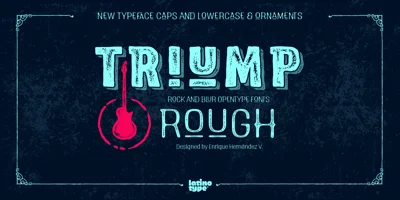
Triump Rough Font
Triump Rough Font presents designers with a distressed typeface that embodies victorious spirit and weathered strength with triumphant character. However, for commercial use, you must purchase this font. You can download it for free for testing purposes only.
Triump Rough Font excels in rugged design applications including vintage sports team branding, distressed merchandise graphics, retro motorcycle club materials, weathered signage systems, rustic brewery packaging, grunge music promotions, urban streetwear labels, industrial equipment branding, aged poster designs, and tough lifestyle campaigns. This battle-worn typeface brings authentic grit to victory-focused design projects.
What makes Triump Rough Font truly exciting is its perfect combination of triumphant boldness with weathered texture that suggests hard-fought victories and earned success through perseverance. The font features strong letterforms with distressed edges and rough surfaces that convey resilience, determination, and the authentic character that comes from overcoming challenges. Its victorious spirit and battle-tested appearance make it ideal for brands celebrating achievement through struggle, endurance sports, and audiences who value authentic toughness, earned respect, and the satisfaction of overcoming obstacles.
The Triump Rough Font family typically includes Regular weight with varying distress levels and textural variations that enhance its weathered character. These rugged options provide designers with complete vintage styling while maintaining the font's distinctive triumphant strength and battle-worn presentation across various tough applications and victory contexts.
Whether you're developing sports heritage branding, creating vintage achievement campaigns, or designing tough lifestyle materials, Triump Rough Font delivers the weathered authority and triumphant resilience that victory-focused projects require. Its exceptional character and battle-tested appeal make it invaluable for designers working with sports organizations, heritage brands, and achievement-oriented companies requiring typography that celebrates hard-won success, authentic struggle, and the enduring spirit of triumph that resonates with audiences who understand that true victory comes through persistence and determination.